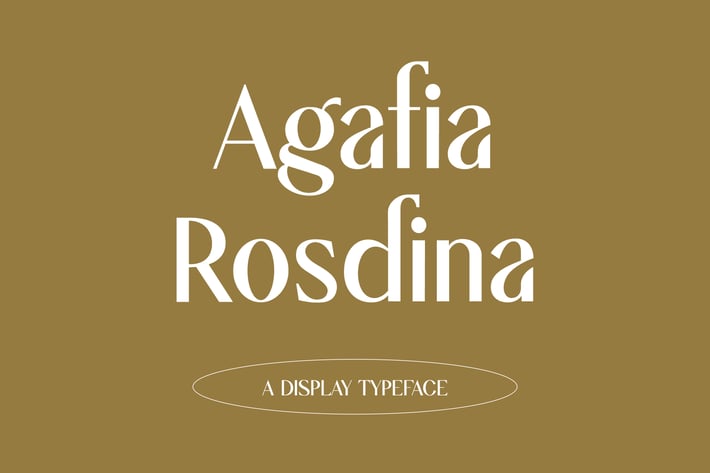
Agafia Rosdina Modern Serif Font
Introducing our new product the name is Agafia Rosdina Modern Serif Font. Modern Serif font that feels beautiful classy, elegant, and modern. This font is perfectly suited for a wide variety of projects, such as signature, stationery, logo, wedding, typography quotes, magazine or book cover, website header, clothing, branding, packaging design, and more. Also for fashion-related branding or editorial design and displays both masculine and feminine qualities.